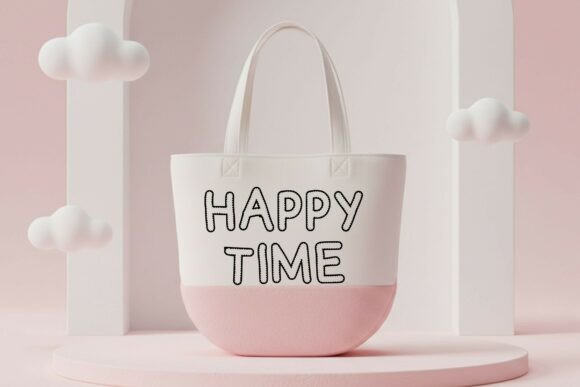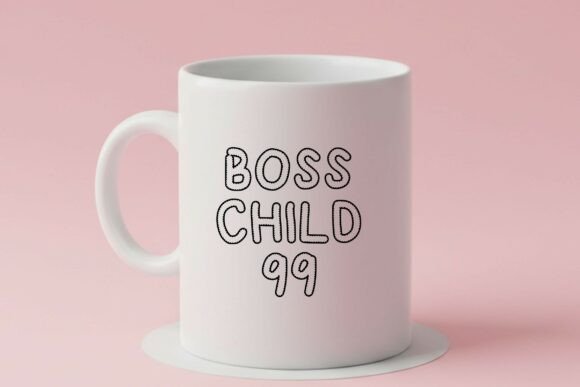
Introduction to Outline Papper Font
Have you ever stumbled upon the perfect font while working on a creative project, and it just makes everything fall into place? That’s exactly what happens when you discover the Outline Papper Font. This playful, hand-drawn outline font is a game-changer for designers looking to add a touch of whimsy to their designs.
With its bold rounded letterforms and stitched or dotted inner detail, the Outline Papper Font is perfect for creating fun and engaging designs. Whether you’re working on posters, children’s materials, branding, or social media graphics, this font is sure to bring a smile to your face and a sparkle to your design.
As a valuable resource for designers, the Outline Papper Font offers a unique blend of style and versatility, making it an ideal choice for any creative project. Plus, with its transparent background and high-quality design, you can be sure that your designs will stand out from the crowd.
Key Features of Outline Papper Font
- Unique Outline Design: The Outline Papper Font features a distinctive outline design, making it perfect for creative projects that require a modern and stylish touch.
- High-Quality Font: This font is designed to provide high-quality results, with crisp and clear characters that are ideal for print and digital use.
- Transparent Background: The font comes with a transparent background, allowing designers to easily combine it with other design elements and create a seamless look.
- Large Character Set: The font includes a large character set, including uppercase and lowercase letters, numbers, and punctuation marks, making it suitable for a wide range of creative projects.
Honest Review: Outline Papper Font
As a designer, I’m always on the lookout for high-quality design resources that can elevate my creative project. Recently, I stumbled upon the Outline Papper Font, and I must say, it’s been a great addition to my design arsenal.
What works well with this font is its versatility. It’s perfect for creating modern and sleek designs, from logos to graphics. The font’s outline style gives it a clean and sophisticated look that’s sure to impress. I’ve used it for a few projects, and the results have been fantastic ✨. The font is also available for free download, which is a huge plus for designers on a budget.
Here are some key features that make the Outline Papper Font stand out:
- High-quality outline design
- Perfect for modern and sleek designs
⚠️ One limitation of this font is that it may not be suitable for designs that require a more traditional or classic look. However, for modern and minimalist designs, the Outline Papper Font is a great choice.
Overall, I’m really impressed with the Outline Papper Font. It’s a valuable design resource that can help take your creative project to the next level.
How to Use Outline Papper Font
The Outline Papper Font is a versatile design resource ideal for creative projects. It features a clean, minimalist design with a transparent background, making it perfect for various applications.
Using Outline Papper Font in Different Platforms
Use the Outline Papper Font in Adobe Photoshop and Illustrator for professional-grade designs. Its transparent background makes it easy to combine with other design elements.
Insert the Outline Papper Font into your PowerPoint or Word documents for a sleek and modern look. Perfect for presentations, reports, or other business materials.
Tips for Getting the Most Out of Outline Papper Font
Experiment with different font sizes and colors to create visually appealing designs. Combine the Outline Papper Font with other design elements to create a unique and engaging look.
The Outline Papper Font is ideal for:
- Presentation designs
- Business reports